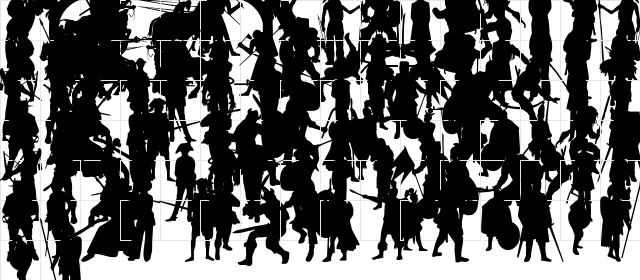
Time Warriors Regular
Design Context for Time Warriors Typeface
Time Warriors is a composed and adaptable typeface that performs quietly and consistently across a wide range of design contexts.